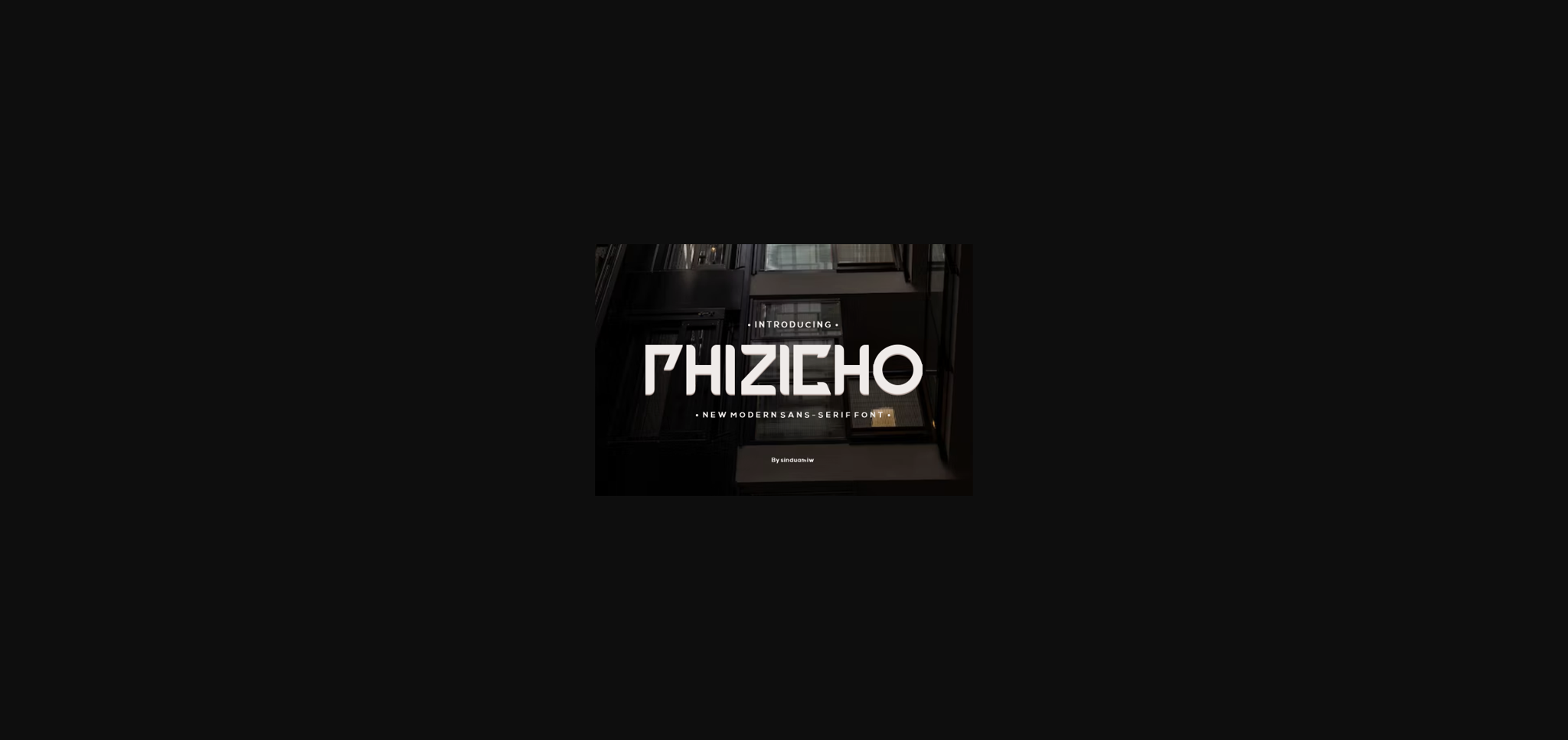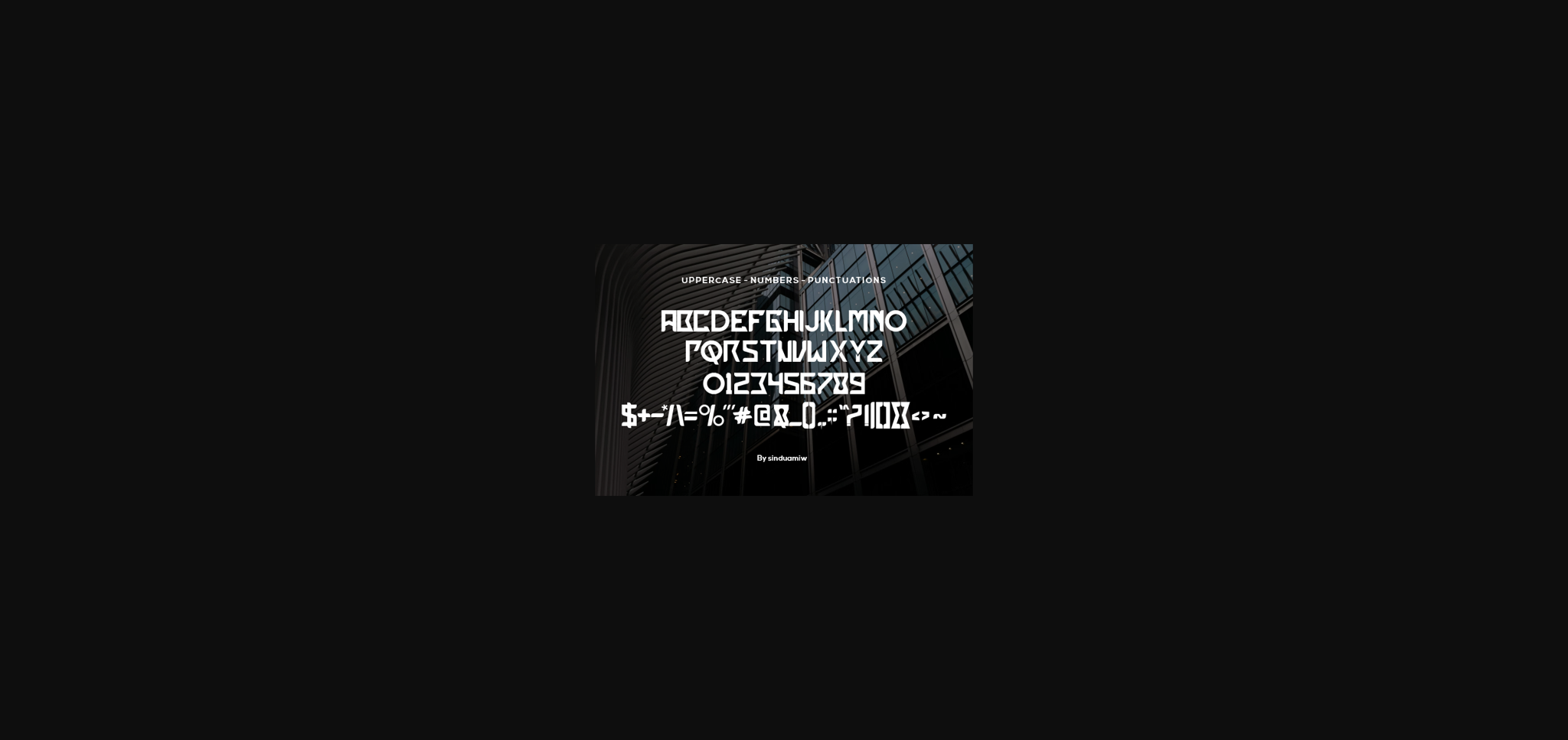
About Phizicho Font
Discover a cool and powerful font that brings an amazing feel to your designs. Ideal for bold creations like posters and quote designs, this font stands out with its extraordinary vibe. Whether you’re an ordinary user or someone seeking the extraordinary, give this font a try – it’s exceptionally cool. Highly recommended for those in need of a font with a standout design.